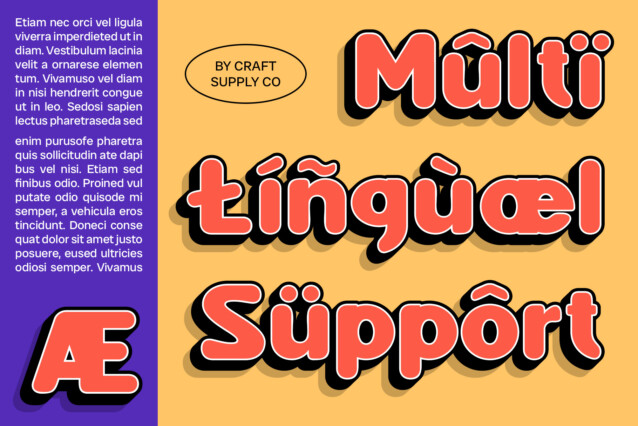
Fenord Rounded 3D Font is a modern sans-serif font that combines bold, rounded shapes with an old-school vibe. Its chunky, rounded forms evoke a cute and friendly feel, perfect for playful branding and retro-themed designs.